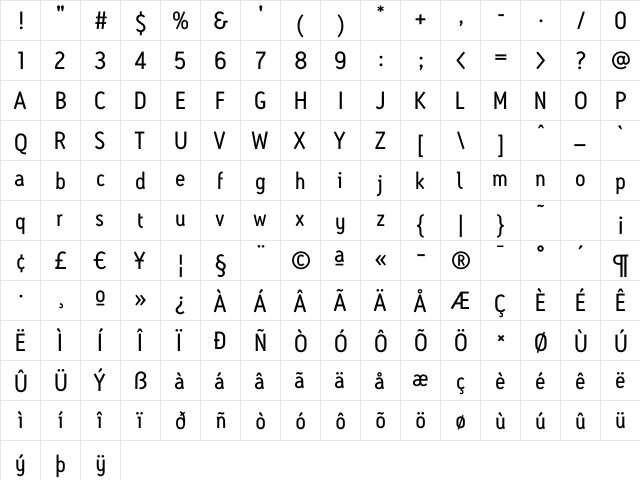
AntitledRegular Regular
Design Context for AntitledRegular Typeface
AntitledRegular takes a measured approach to typography — its balanced proportions and neutral character make it a reliable workhorse for both digital and print work.